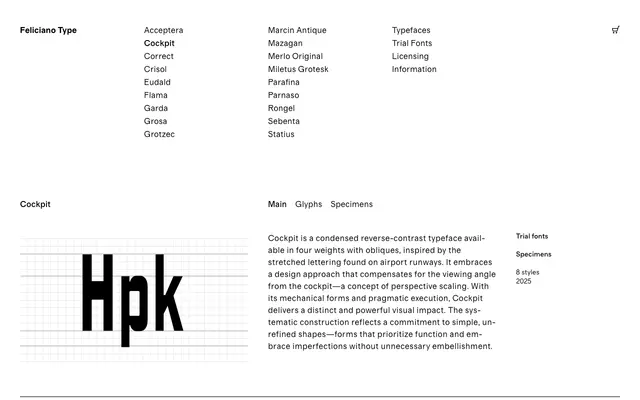
Cockpit
Feliciano Type · 2025
A condensed reverse-contrast display typeface in four weights with obliques, drawn from the distorted lettering painted on airport runways and designed to account for cockpit viewing angles.
The concept behind Cockpit is perspective scaling: runway markings are elongated to appear proportional when viewed from a steep angle above. That functional logic drives the entire design, producing mechanically constructed letterforms with intentional imperfection and no decorative concession. Four weights from Regular to Black each come with an oblique, giving eight styles in total.
Cockpit is a condensed reverse-contrast typeface with mechanical, utilitarian forms derived from airport runway lettering. The reverse-contrast construction and perspective-scaling concept place it firmly in the display category rather than any conventional text classification.